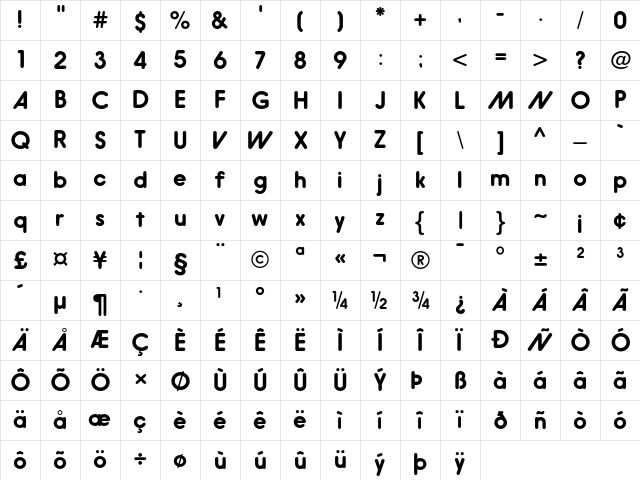
Hiruko Pro Alternate Regular
Foundry: Thinkdust
Designer: Alex Haigh
Design Context for Hiruko Pro Alternate
Hiruko Pro Alternate is a composed and adaptable typeface that performs quietly and consistently across a wide range of design contexts.